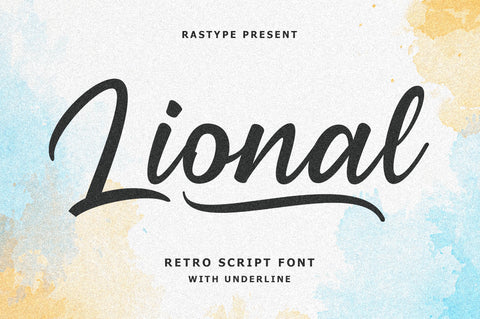
Lional | Retro Script Font
Lional Retro Script Font with Underline is a font that is suitable for poster designs, book covers, weddings and other designs according to retro-style tastes.